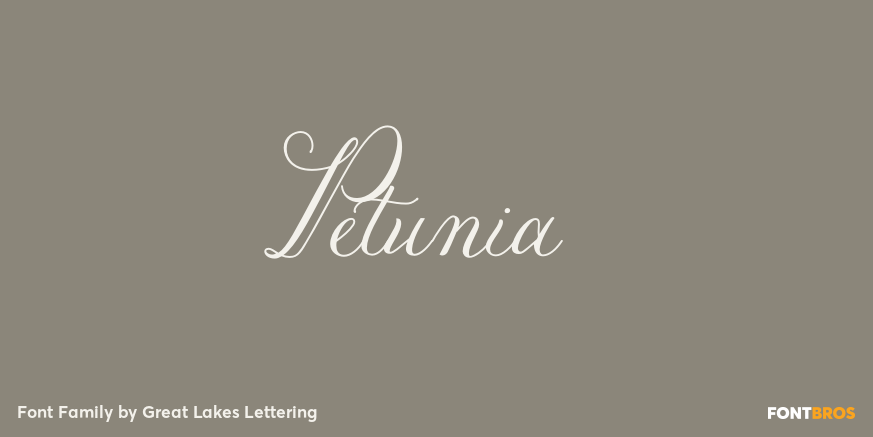
Petunia
About Petunia
Petunia is a calligraphy style font designed by New York based calligrapher Eliza Gwendalyn. Her modern copperplate script has been a style she has been developing throughout her career. Her angelic flourishes and bouncy style are widely influenced by…